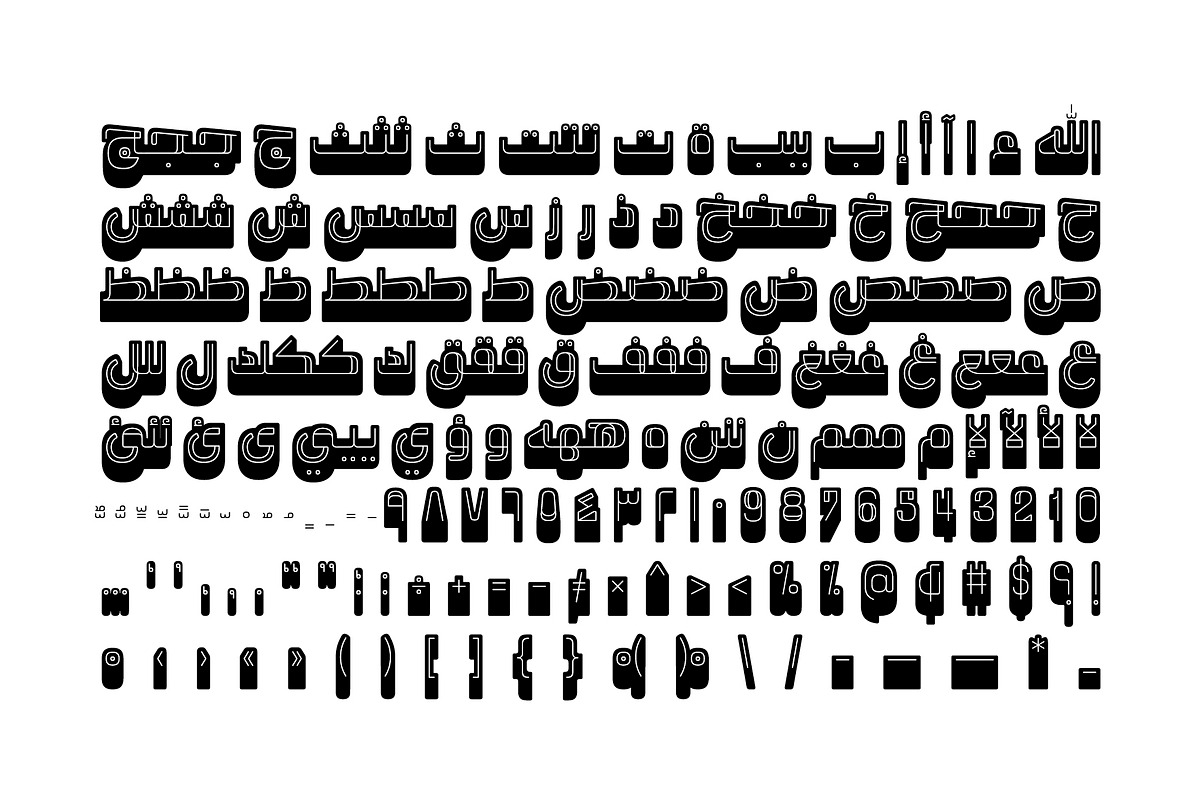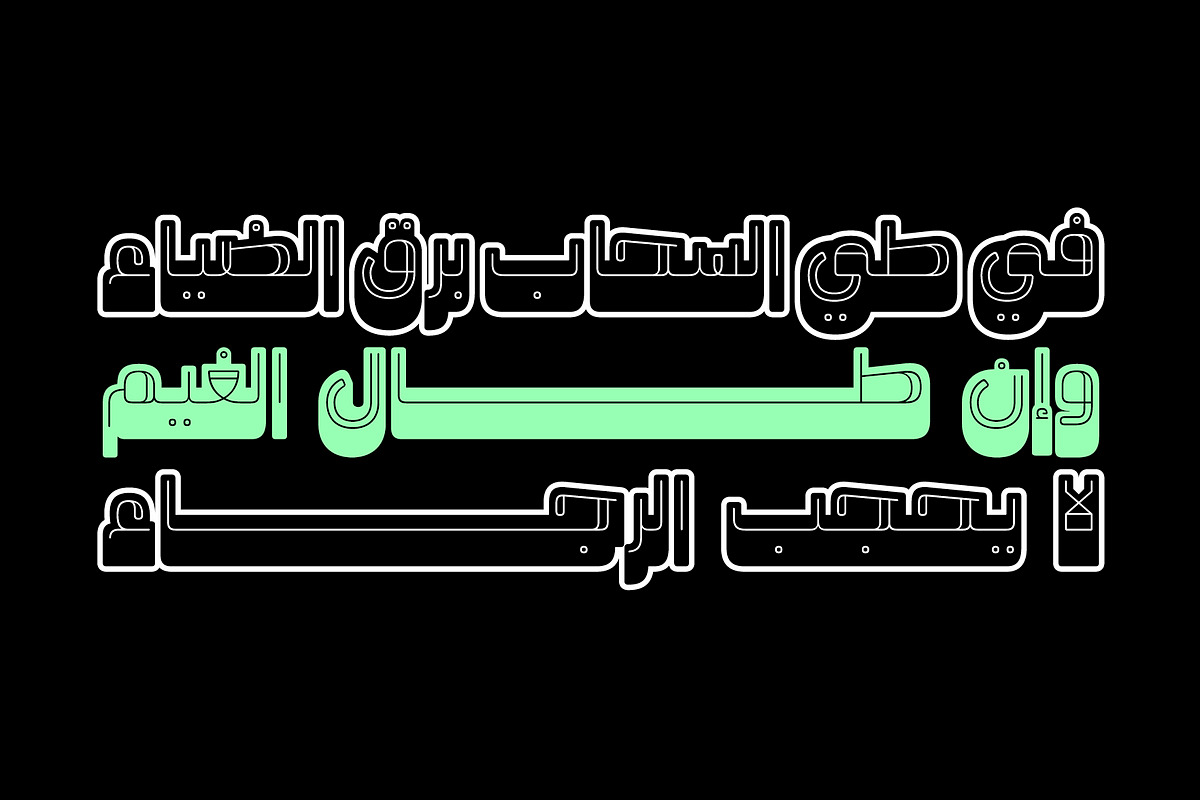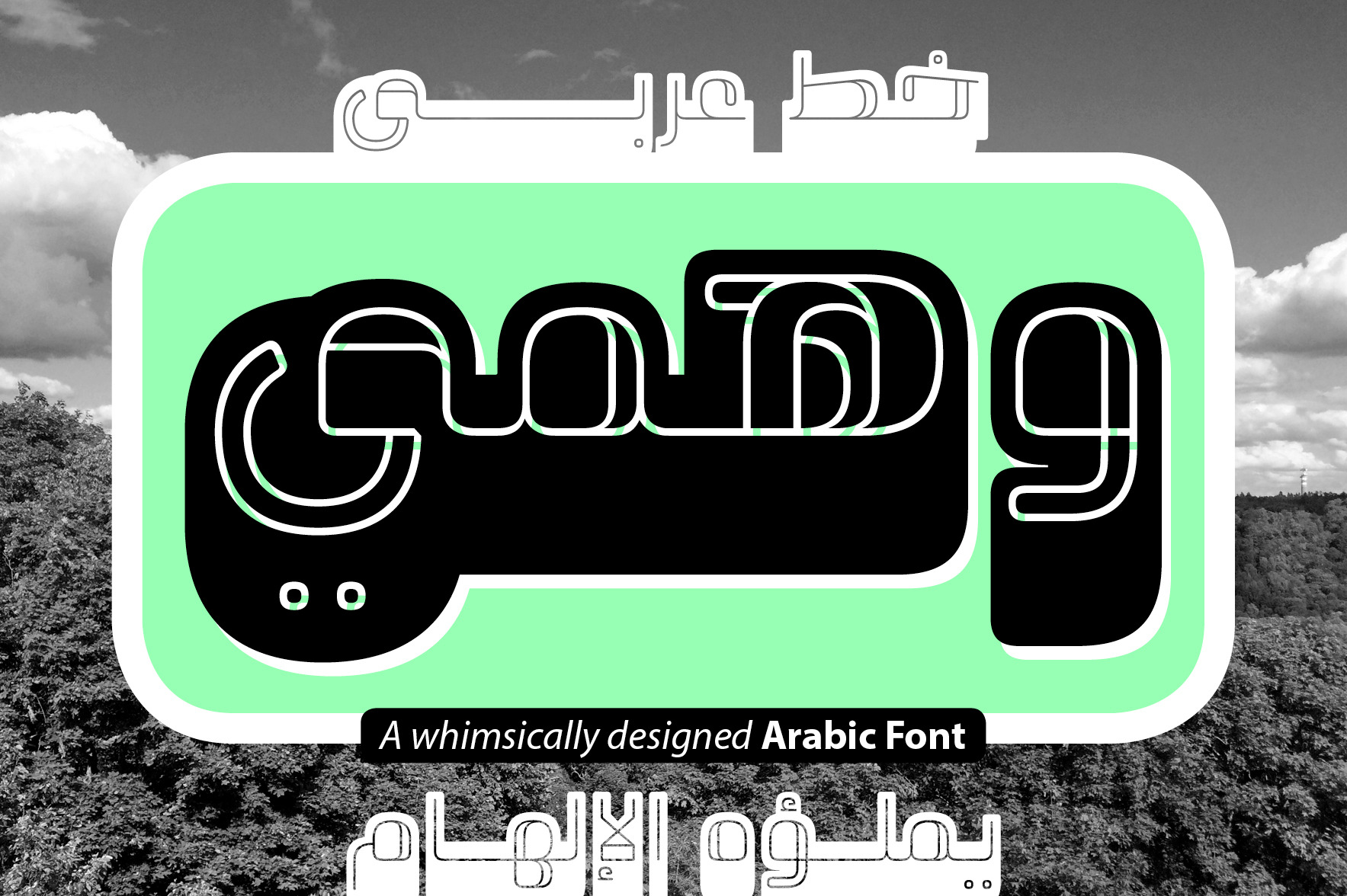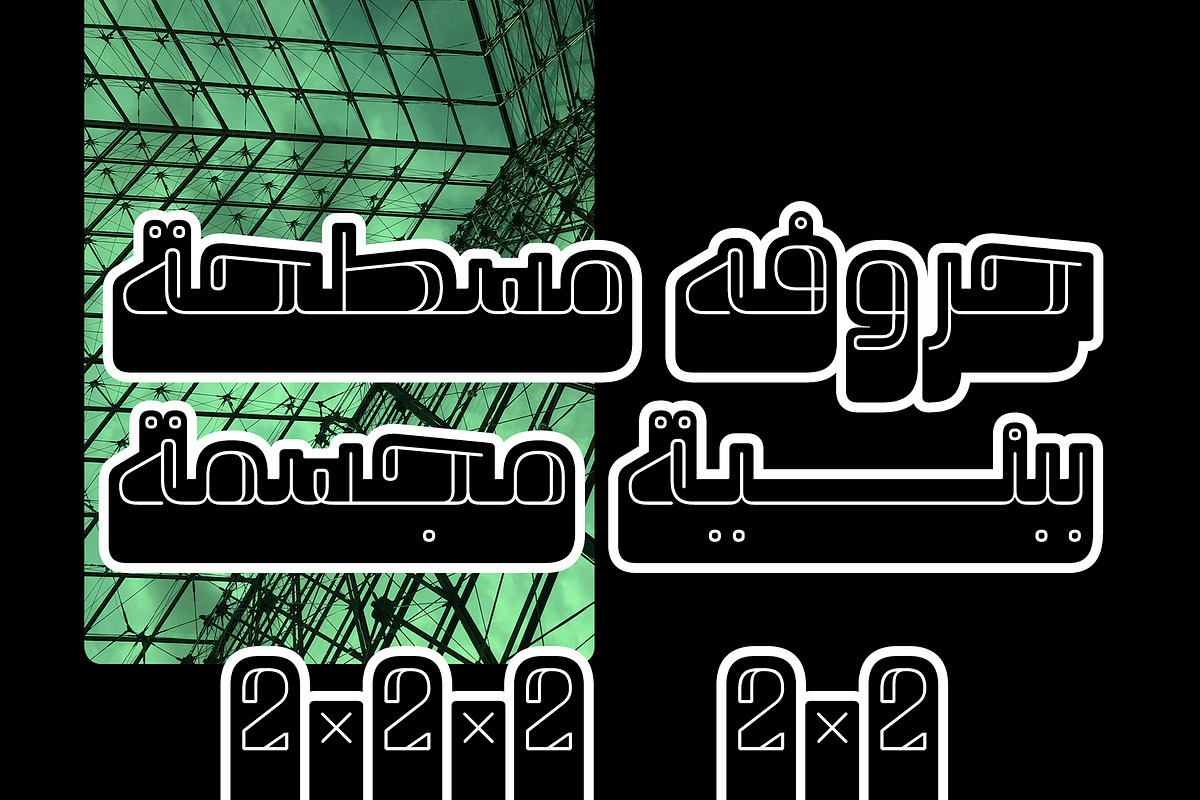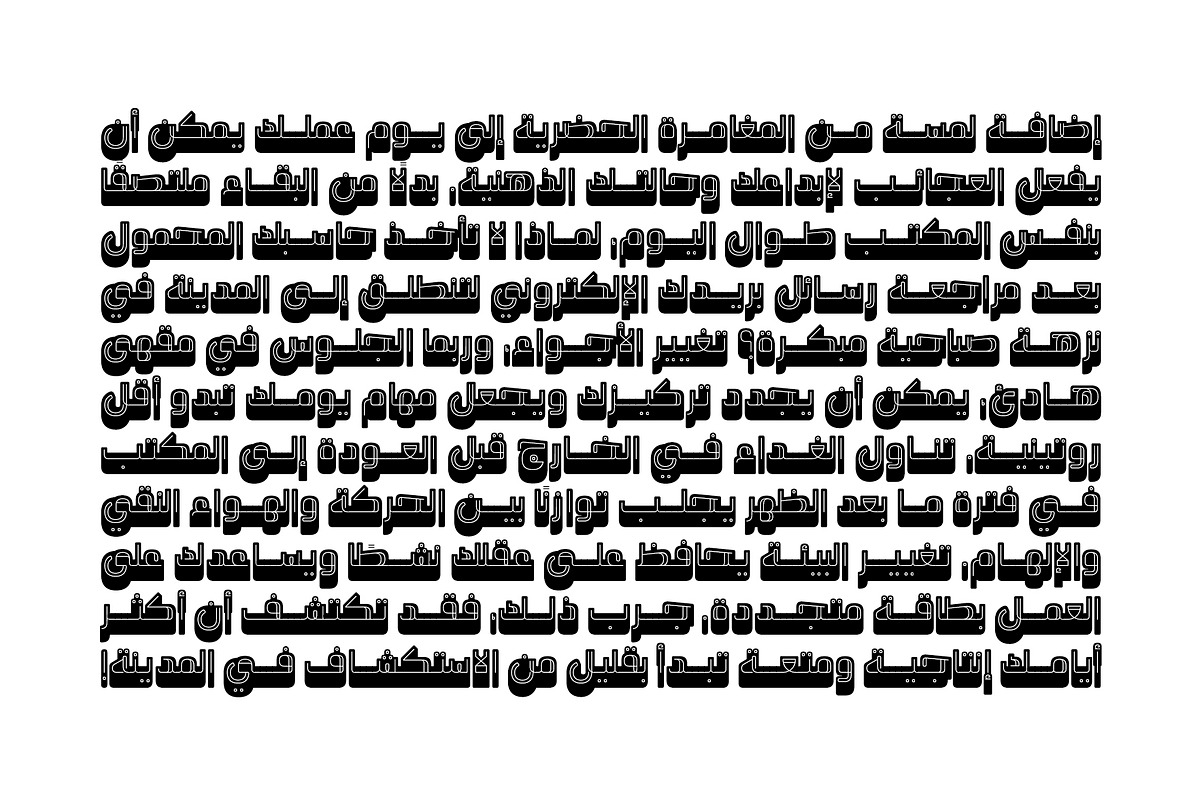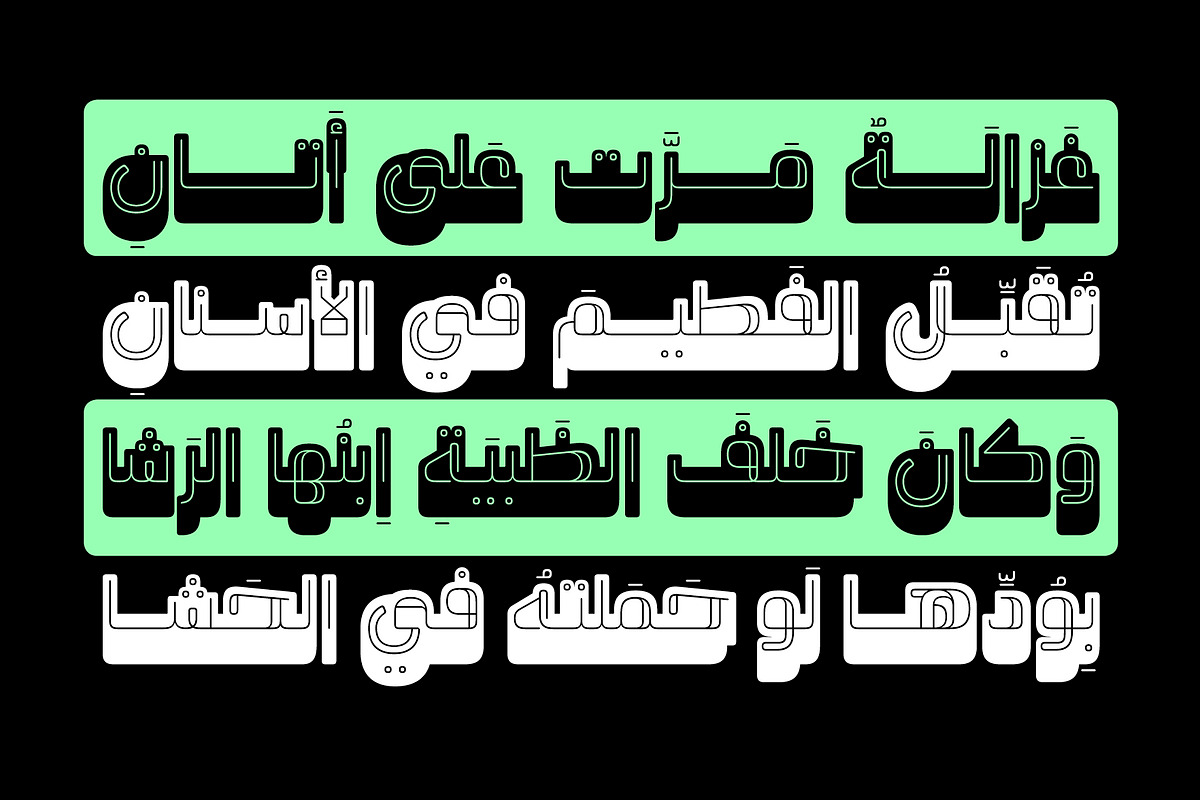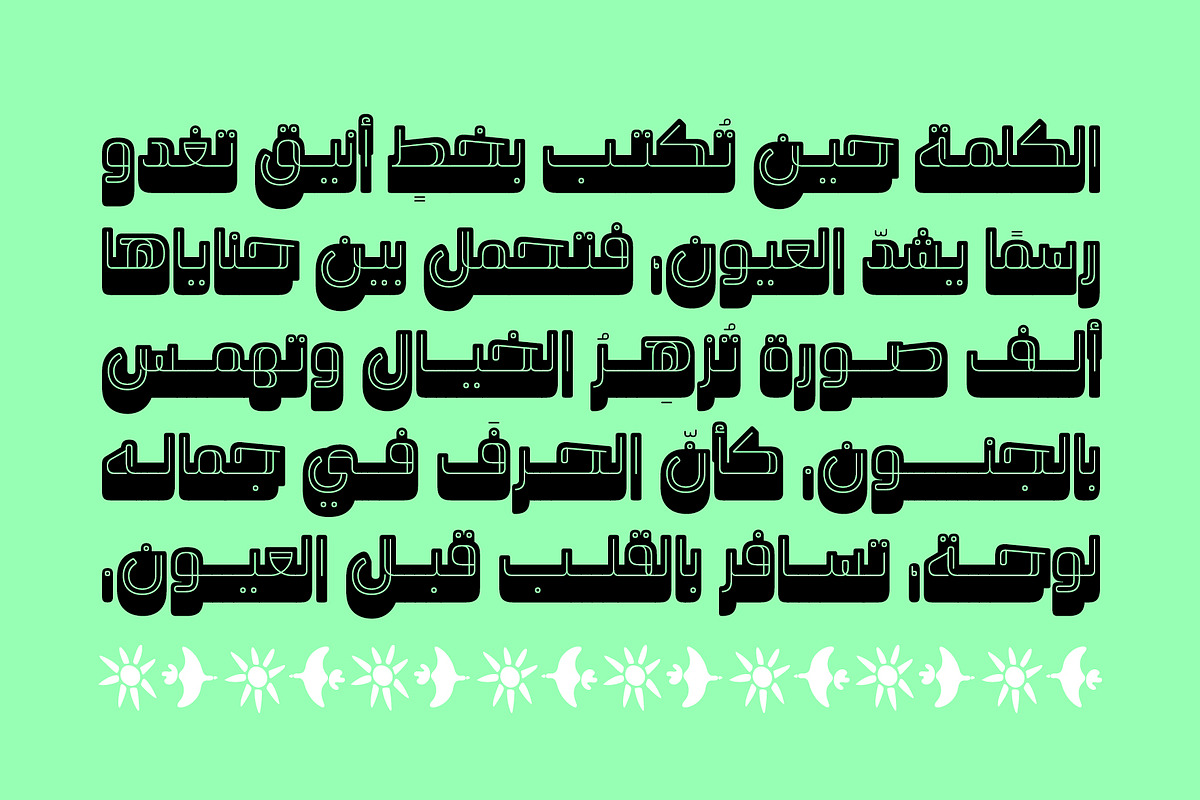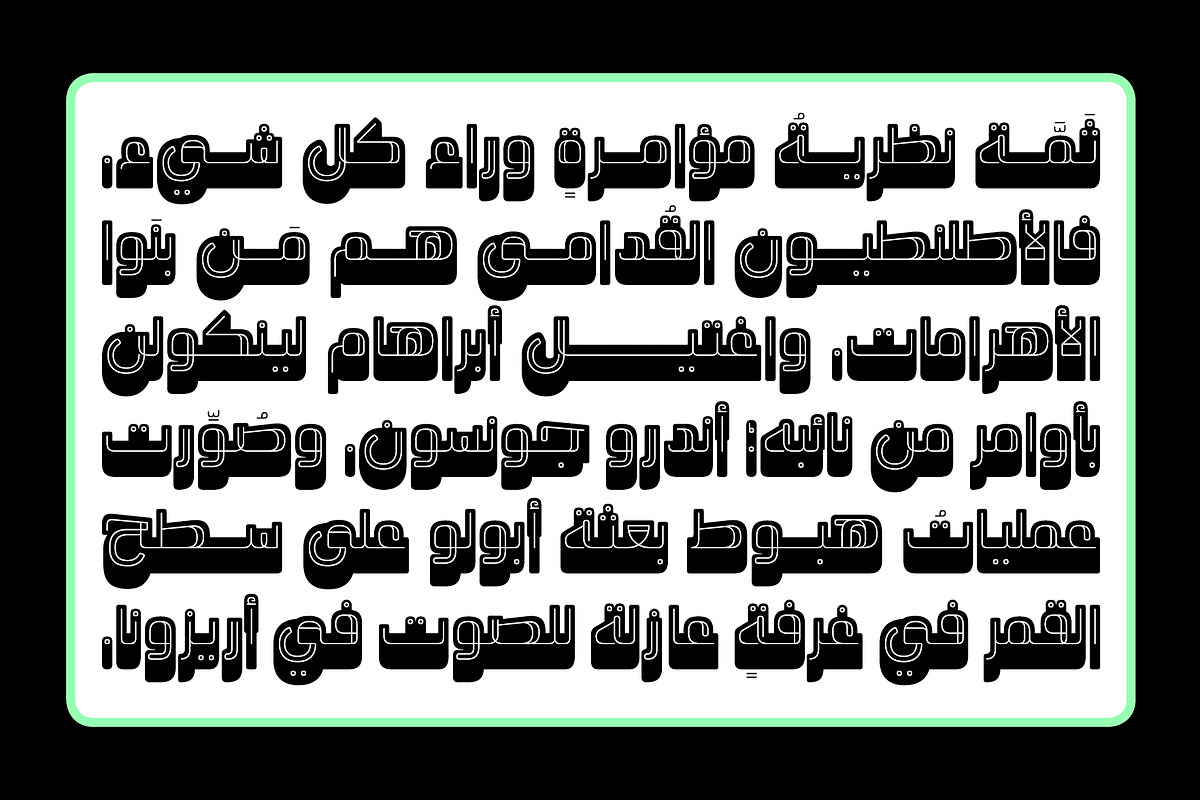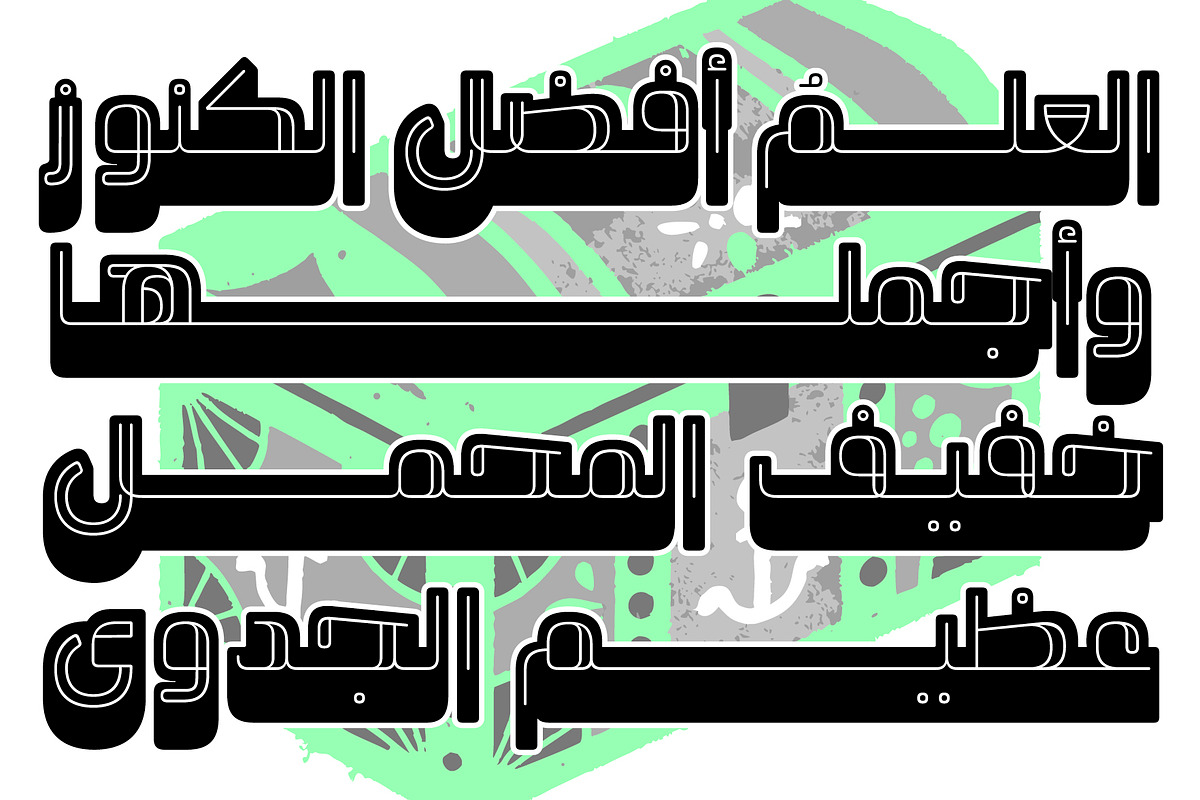
Wahmi - Arabic Font
Wahmi, which translates to 'Whimsical' in Arabic, is a font characterized by its overlapping and interlocking design, imparting a sophisticated modern feel that seems to waltz between tradition and futurism. This font is a perfect choice for Arabic posters, brand identities, and modern typography as well as display uses. It is compatible with Windows, macOS, and mobile applications.